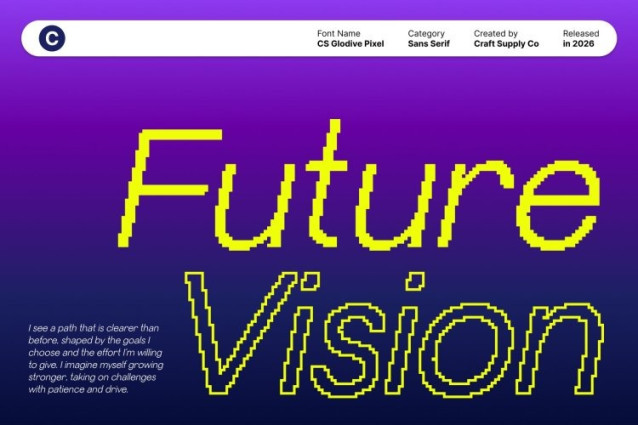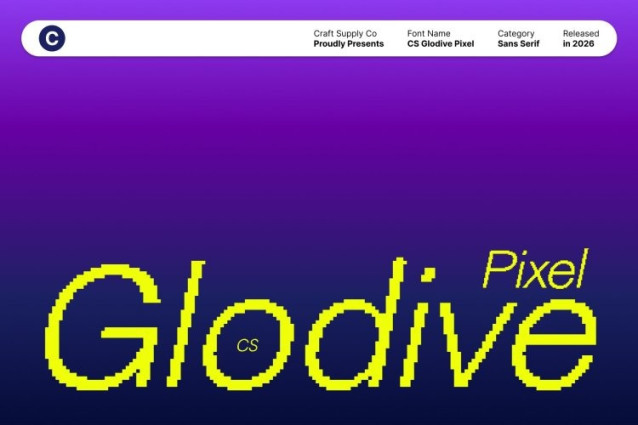
CS Glodive Pixel Font
CS Glodive Pixel Font This is a modern sans-serif font that combines clean, minimalist design with subtle pixel detailing, giving it a sleek, contemporary, and slightly retro-digital character. Its precise letterforms exude professionalism while the pixel-inspired accents evoke a sense of modern technology and digital refinement.
Perfect for Corporate and Digital Applications
Ideal for corporate branding, professional documents, websites, and promotional materials, this font delivers clarity, reliability, and elegance. The combination of minimalist lines and pixel nuances ensures that your content communicates authority while maintaining visual interest.
Elegant, Classy, and Eye-Catching
The pixel details add a unique texture that balances sophistication with modern tech aesthetics. Each character feels precise yet stylish, making this font perfect for projects that require a polished, professional, and contemporary appearance with a subtle retro-digital edge.
Versatile for Modern, Retro, and Tech-Inspired Designs
This font adapts seamlessly across corporate, editorial, or digital projects. Its clean structure, combined with pixel-inspired accents, makes it a versatile choice for designers seeking a modern font with professional clarity and a nod to retro digital charm.